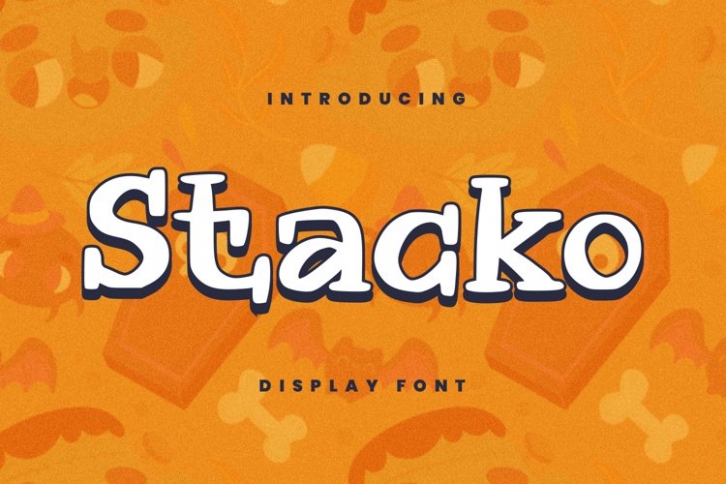
Stacko is a beautiful font that was designed by plusstore. It's a great choice for designers and creatives who need such a font. It was released on July 7, 2021 and the file size is 4.47 MB. Stacko may give a more youthful, expressive and casual look to your project. It is a very beautiful, refined, elegant, and high-quality font.